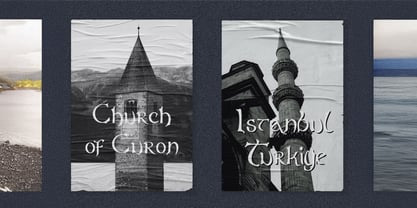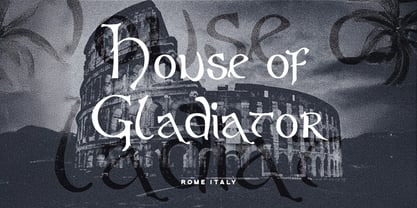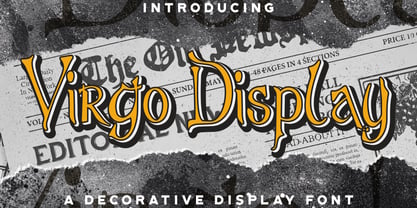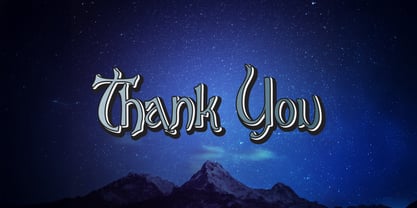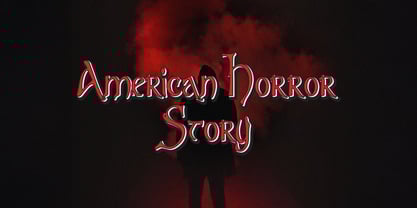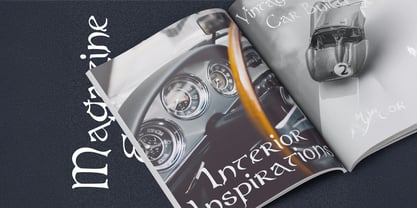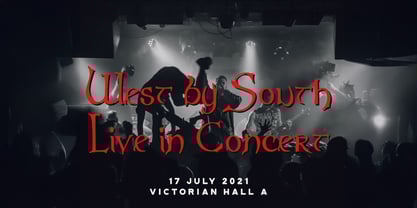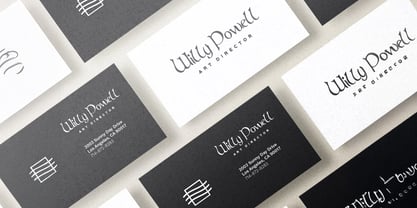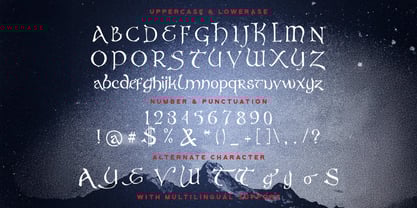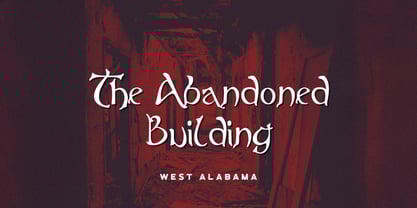
Virgo Display
by Stringlabs Creative Studio
The Virgo Display Font Family was designed by Virgiawan Listanto and published by Stringlabs Creative Studio. Virgo Display contains 1 styles. More about this family
Virgo Display is a hauntingly bold display font with eerie charm and spooky character. With jagged edges and dramatic flair, this font is perfect for horror-themed projects, Halloween designs, or anything that needs a dark, mysterious vibe.